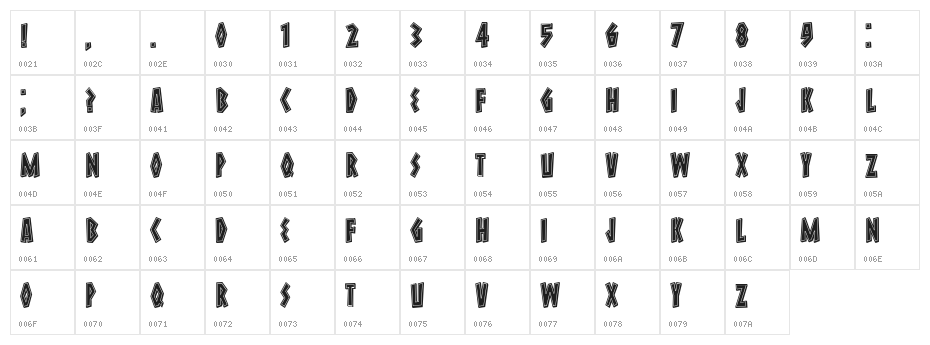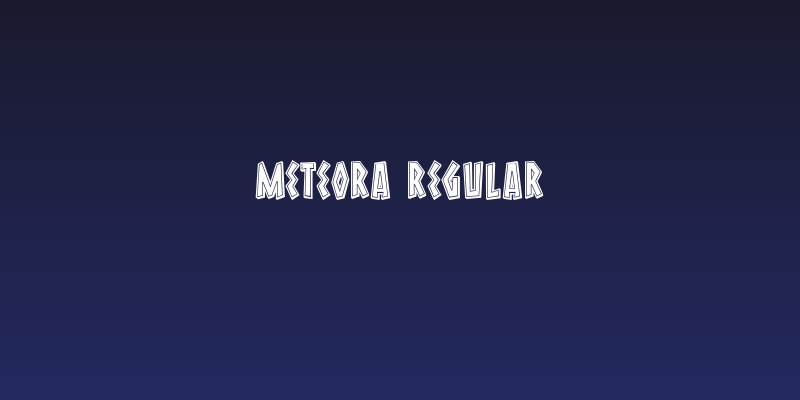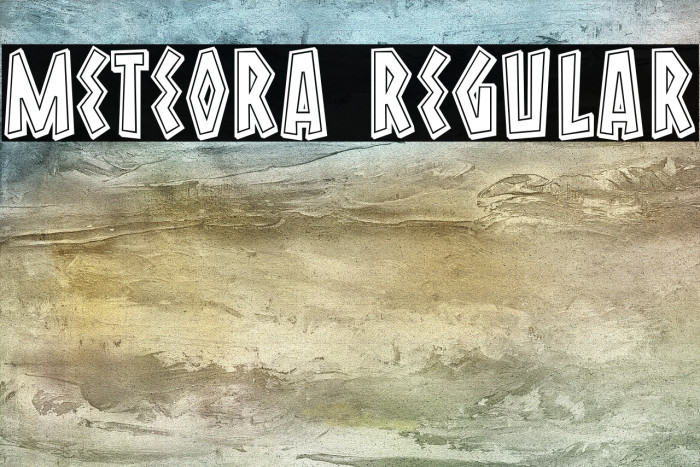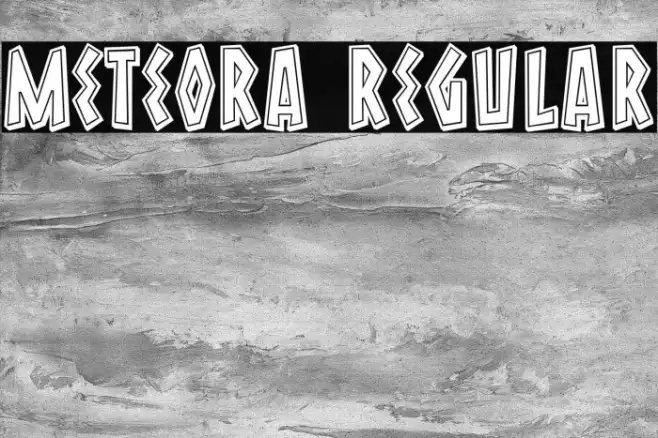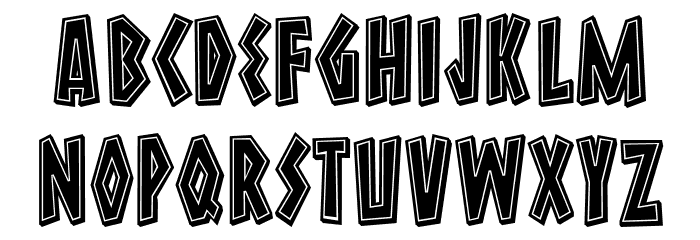
Meteora Regular Font
Meteora Regular Description
This font features a bold, dynamic style with a three-dimensional effect, created by its thick outlines and shadowed appearance. The characters are uppercase only, with a geometric and angular design that gives a sense of movement and energy. The font's playful and eye-catching nature makes it ideal for creative projects. The numbers and special characters follow the same bold and shadowed design, ensuring consistency across all elements. Its unique style stands out, making it suitable for attention-grabbing headlines or titles.
| Proposed Projects | Ideal for posters, logos, video game graphics, and any project requiring a bold, eye-catching typeface. |